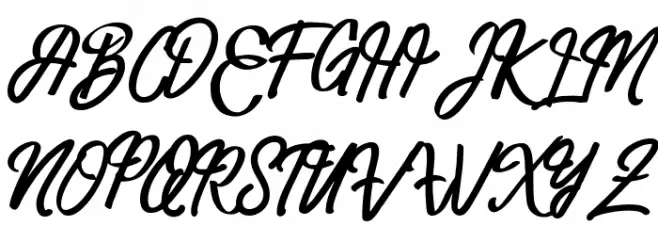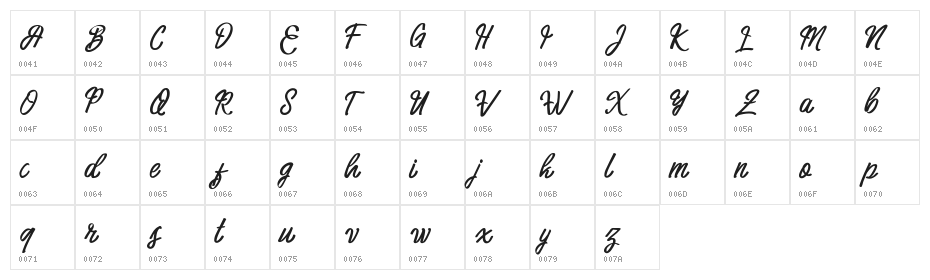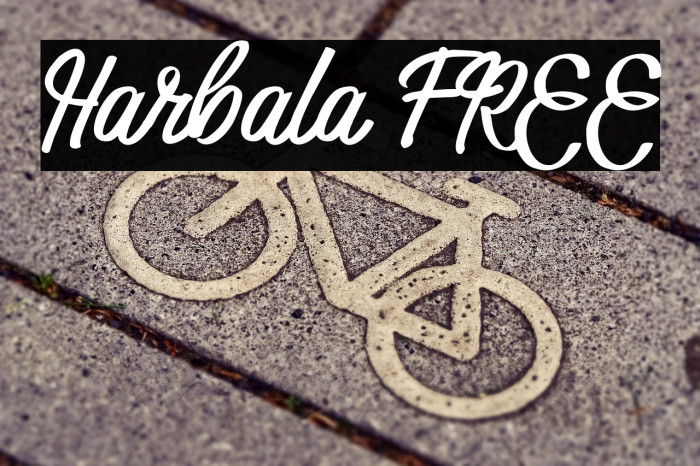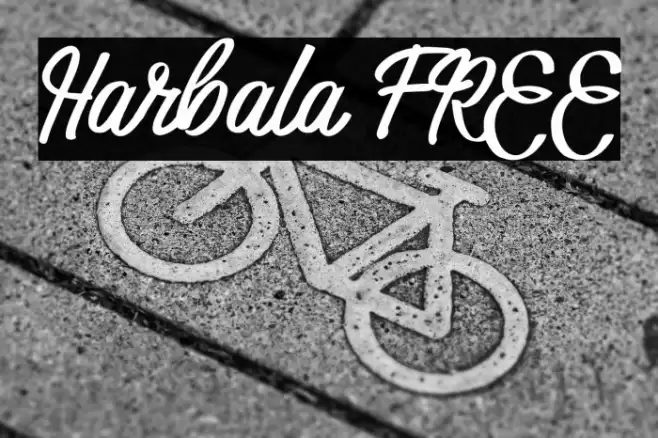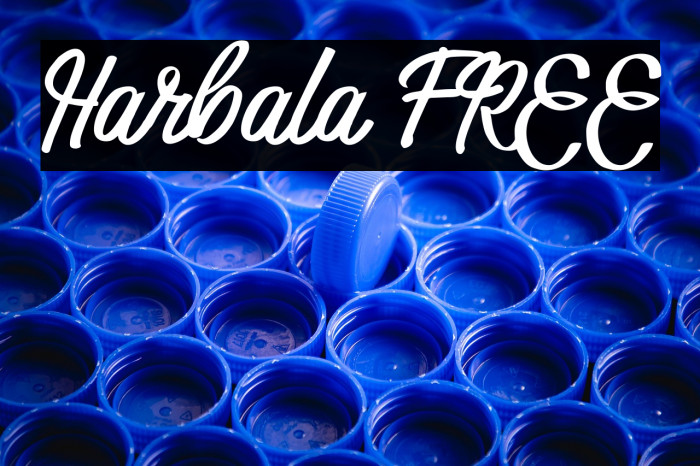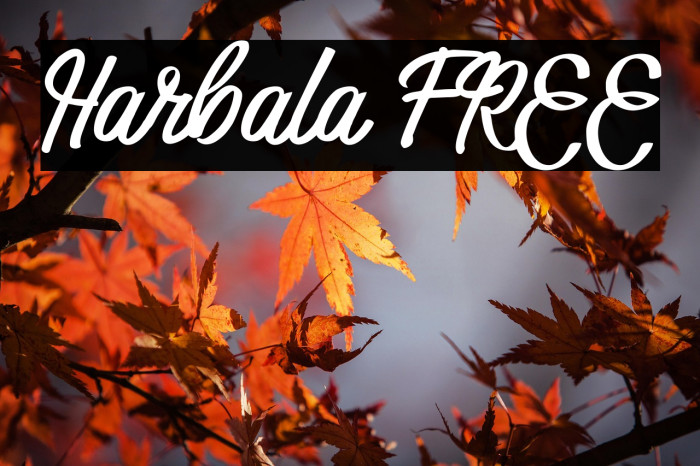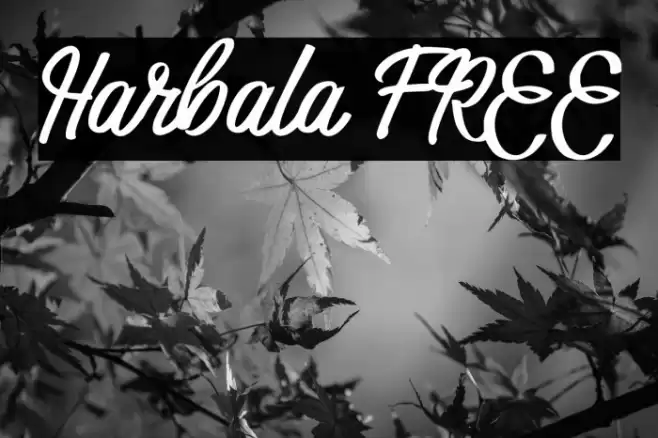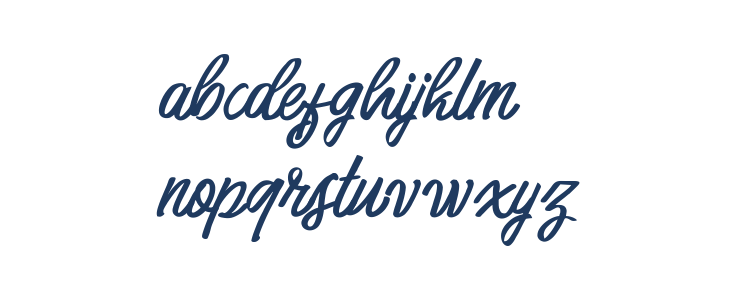
Harbala FREE Font
Harbala FREE Description
This font features a bold, flowing script style that mimics the fluidity of handwriting. The characters are interconnected, creating a seamless and elegant appearance. The strokes are thick and consistent, providing a strong presence on the page. The uppercase letters are slightly larger and more ornate, while the lowercase letters maintain a smooth and cohesive look. This font exudes a sense of sophistication and creativity, making it ideal for projects that require a personal touch. The overall design is both classic and modern, with a timeless appeal that can enhance various design elements.
| Proposed Projects | Ideal for wedding invitations, branding, logos, and any project requiring an elegant, personal touch. |